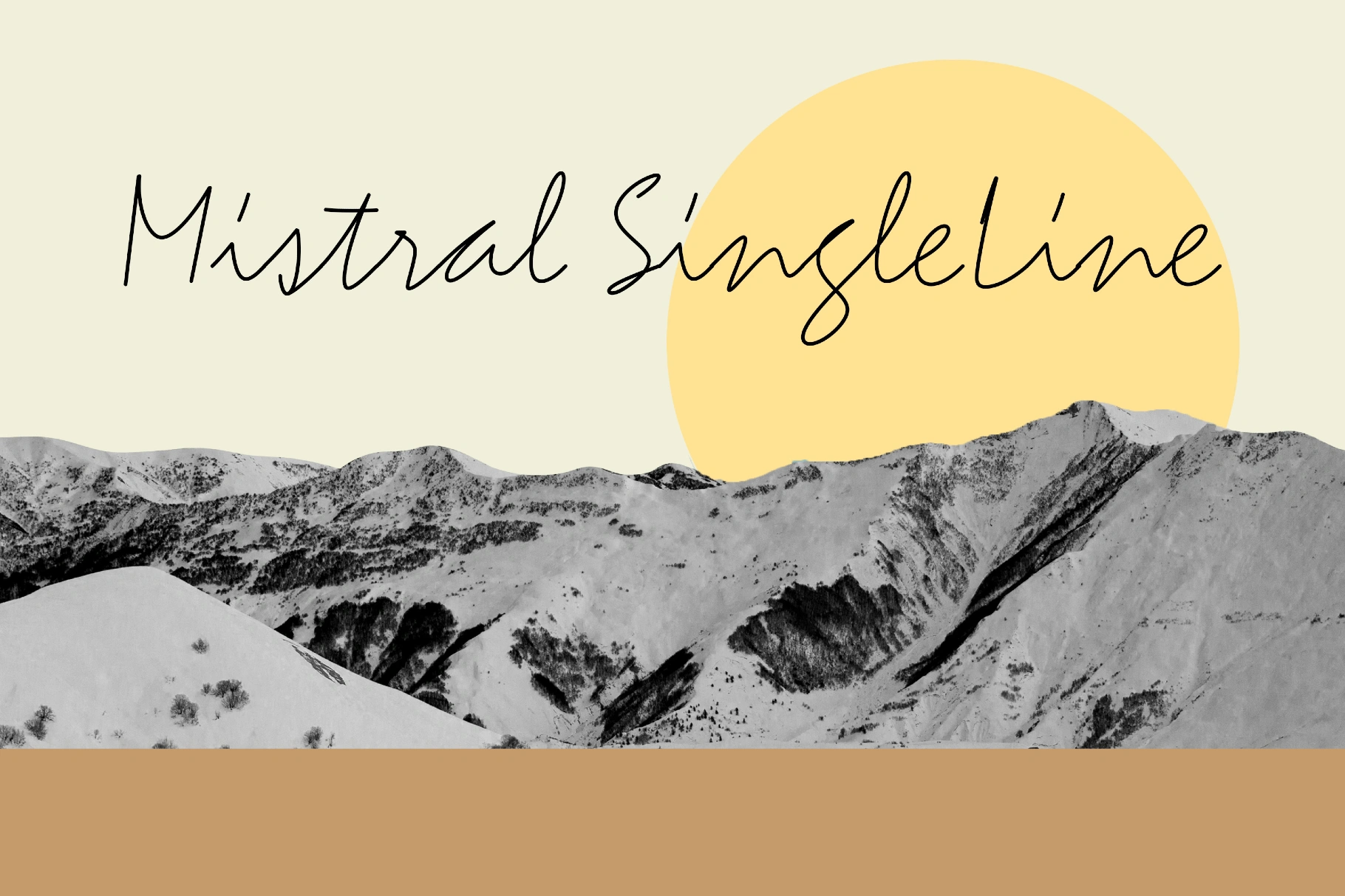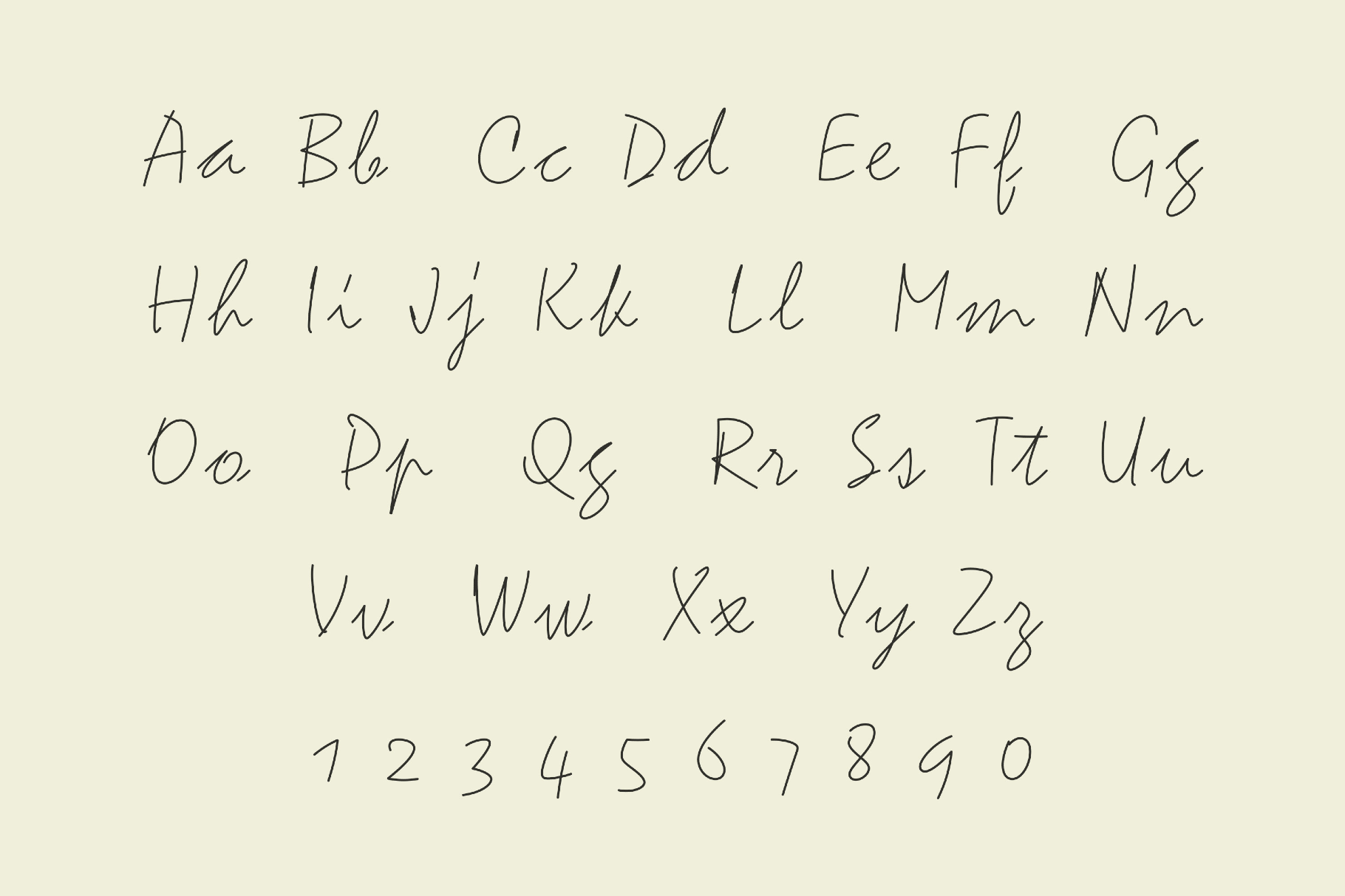
Mistral SingleLine Script
Mistral SingleLine
Mistral SingleLine redraws the classic French brush script as a smooth, single-stroke line. This wiry font with quick, windblown turns echoes 1950s café awnings and hand-painted travel posters. The flowing, connected letters work beautifully for logo signatures, neon-style mockups, café boards, apparel graphics, greeting cards, wedding stationery, packaging, boutique branding, social media quotes, and expressive headlines.